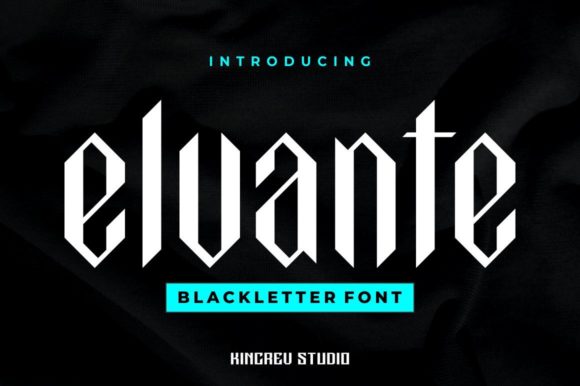
Introducing Elvante, the modern blackletter font that will elevate your designs to new heights. Crafted by the renowned Kincrev Studio, Elvante boasts a captivating blend of classic elegance and contemporary charm that will leave an unforgettable mark on your audience.
Unleash the power of Elvante and witness the transformation of your creative endeavors. Its distinctive blackletter style exudes sophistication and timelessness, making it the perfect choice for branding, logos, and invitations that demand attention. Step into a world of boundless possibilities, where Elvante's versatility knows no bounds.
With Elvante, your designs will transcend the ordinary. Its intricate swirls and sharp angles add a touch of intrigue and sophistication to any project, captivating your audience with its timeless appeal. Whether you're crafting a captivating logo that commands respect or a stunning wedding invitation that evokes a sense of romance, Elvante will elevate your vision and leave a lasting impression.
Imagine the allure of an invitation penned with Elvante's graceful strokes, promising an unforgettable celebration. Envision a logo adorned with Elvante's bold presence, exuding confidence and professionalism. Experience the magic of Elvante and discover a font that will ignite your creativity and empower you to create designs that resonate with your audience.
Embark on a journey of creative exploration with Elvante, the font that will transform your designs into masterpieces. Its versatility and timeless elegance will become an indispensable tool in your creative arsenal, enabling you to captivate, inspire, and leave an enduring legacy through your designs.